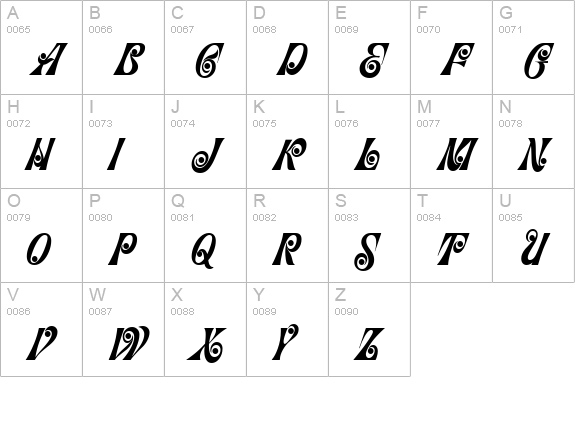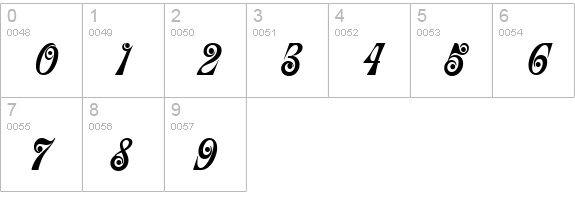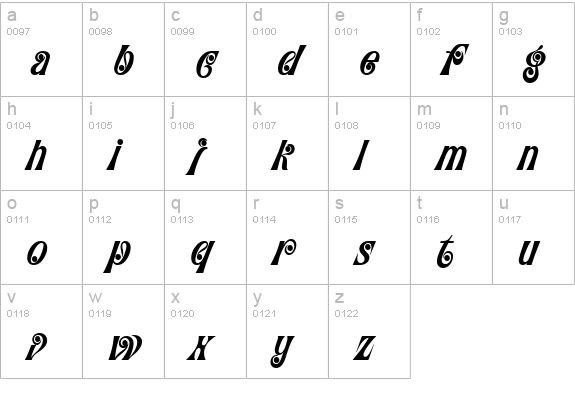
ConfectionerJF Font Details
ConfectionerJF font is a delightful and whimsical typeface that brings a touch of sweetness to any project. This charming font features elegant curves and playful flourishes, making it perfect for adding a touch of fun to your designs. Whether you're working on a birthday invitation, a candy shop logo, or a whimsical greeting card, ConfectionerJF font is sure to bring a smile to your audience. The best part? ConfectionerJF font is completely free to download at FontsMarket.com. This means you can easily add this charming typeface to your font collection without any cost. So go ahead and give your designs a touch of sweetness with ConfectionerJF font today!